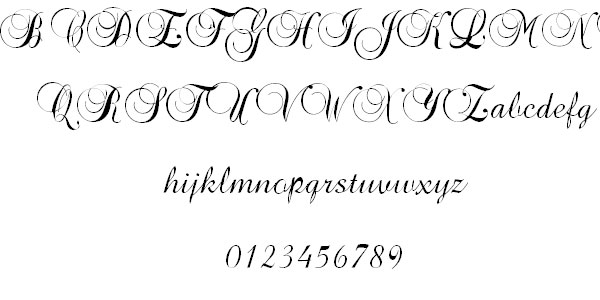
The old english font certainly goes well with its noble design. Cursive tattoo fonts such as in this example add style and refined design to the tattoo. Letters may be joined or unjoined.
Cursive font & handwriting text generator. Looking for cursive tattoo fonts? Tattoo name fonts tattoo fonts cursive lettering types of cursive writing.
In this post we are showcasing 40+ cool cursive tattoo fonts that will help you to pick up your own choice right on place. A tattoo script font is written in calligraphy and mimics cursive handwriting. Thin script tattoo google search calligraphy tattoo.
Smart Curvy Font Is A Very Nice Tattoo Font It Has Got Nice Curves I Liked This Font.
Cool Letter Fonts For Tattoos.
Old English Font Tattoo Style